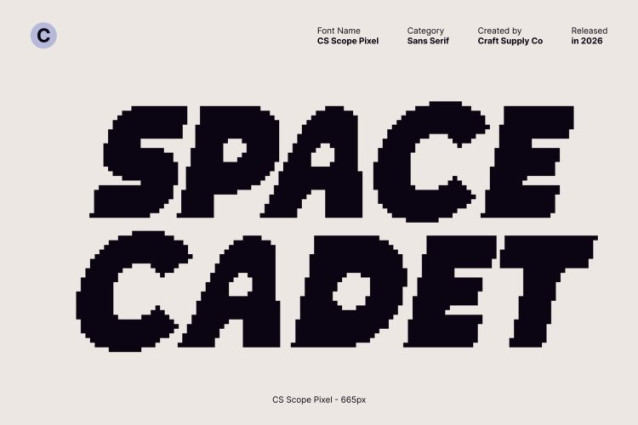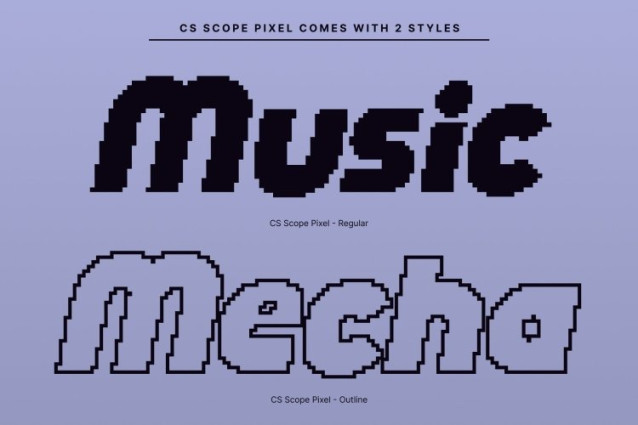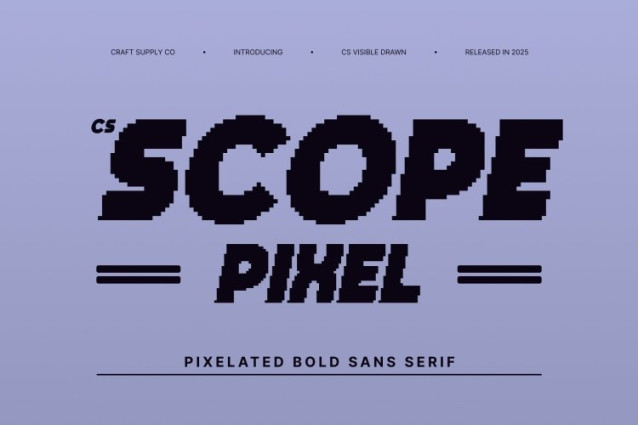
CS Scope Pixel Font This is a bold display font created to command attention instantly. Its heavy weight and solid construction ensure maximum visual impact, while pixel-based detailing adds a distinctive old-digital texture. This combination makes the font feel powerful, eye-catching, and rooted in retro screen aesthetics, perfect for designs that need to stand out boldly.
Modern Geometry Enhanced by Pixel Character
Built from clean geometric shapes, this font maintains a modern and structured foundation. Rounded corners and friendly proportions soften the geometry, while the pixel construction introduces a nostalgic digital feel inspired by classic arcade and early computer typography. The result is a bold typeface that feels modern, approachable, and retro-tech at the same time.
Fresh, Fun, and Retro-Digital Energy
This font delivers a cheerful and engaging personality with a clear 8-bit influence. The pixel style gives the letters a playful, old-school digital vibe, while the balanced geometry keeps the look contemporary. It’s ideal for designs that want to feel fun, modern, and visually energetic without losing clarity.
Perfect for Posters, Headlines, and Bold Branding
Designed for high-impact display use, this font shines in posters, headlines, logos, packaging, and digital branding. Its bold presence ensures strong readability, while the pixel detail adds character and memorability. Perfect for creative projects seeking a modern yet retro-digital identity with friendly, geometric energy.